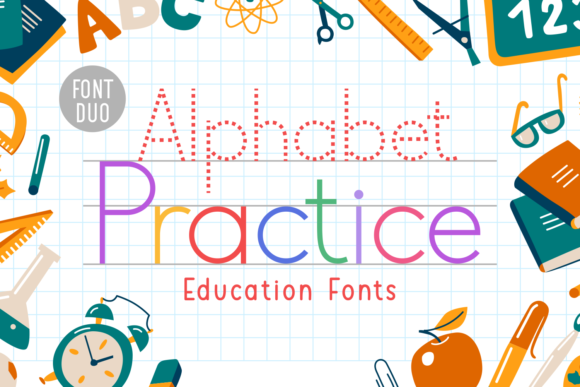
Are you tired of using the same old fonts for your CV and cover letters? Look no further than Alphabet Practice Font, the best font for CV cover letters! Created by Kelik from 7NTypes, this sans serif font is perfect for giving your professional documents a clean and modern look.
Alphabet Practice Font is not only great for professional use, but it also has a playful and fun quality that makes it perfect for creating teaching materials and children's educative games. The thin lettering and simplicity of the font make it easy to read and ideal for any educational setting.
But don't just take our word for it, let the font speak for itself. With its sleek and clean design, Alphabet Practice Font is sure to catch the eye of anyone who reads your documents. It's the perfect way to elevate your work and stand out from the crowd.
So why settle for boring and generic fonts when you can make a statement with Alphabet Practice Font? Whether you're a professional looking to stand out from the crowd or an educator in need of a fun and engaging font for your materials, Alphabet Practice Font is the perfect choice.